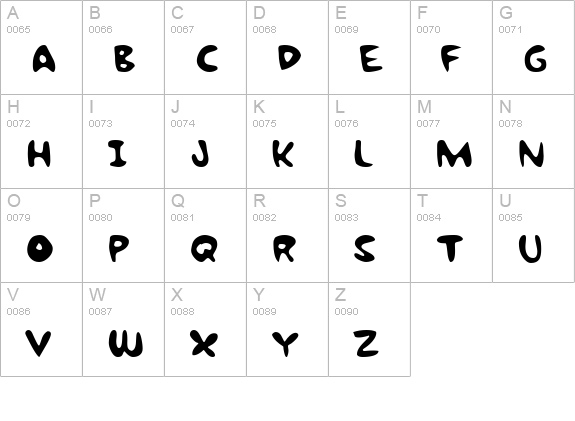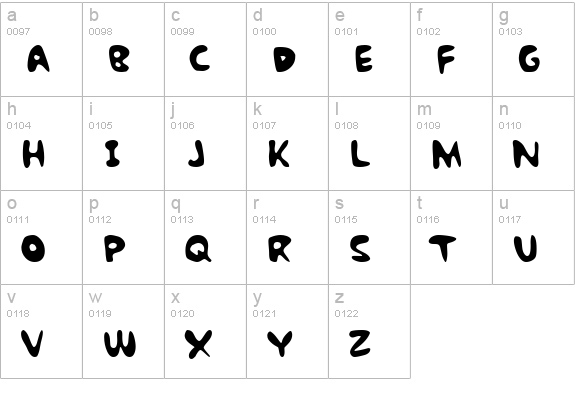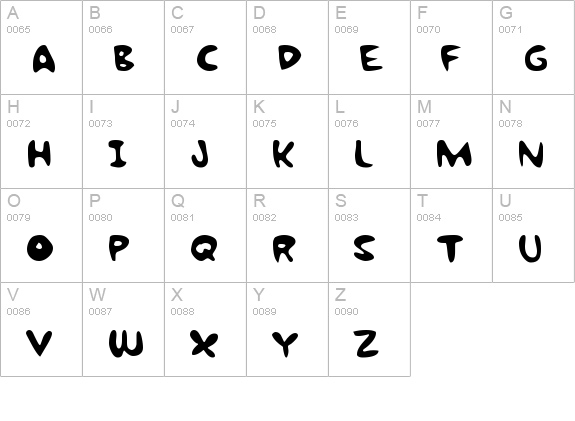
Introducing Bubble Gum RockB font, a playful and whimsical typeface that exudes a fun and vibrant energy. This font is perfect for projects that require a touch of cheerfulness and creativity, making it ideal for designs targeting a young and energetic audience. The Bubble Gum RockB font features bold and bouncy letterforms that bring a sense of excitement to any text. Best of all, Bubble Gum RockB is completely free to download at FontsMarket.com. Whether you're working on posters, invitations, or social media graphics, this font will add a delightful pop of personality to your designs. Don't miss out on the opportunity to enhance your projects with this unique and eye-catching typeface. Download Bubble Gum RockB font today and let your creativity shine!